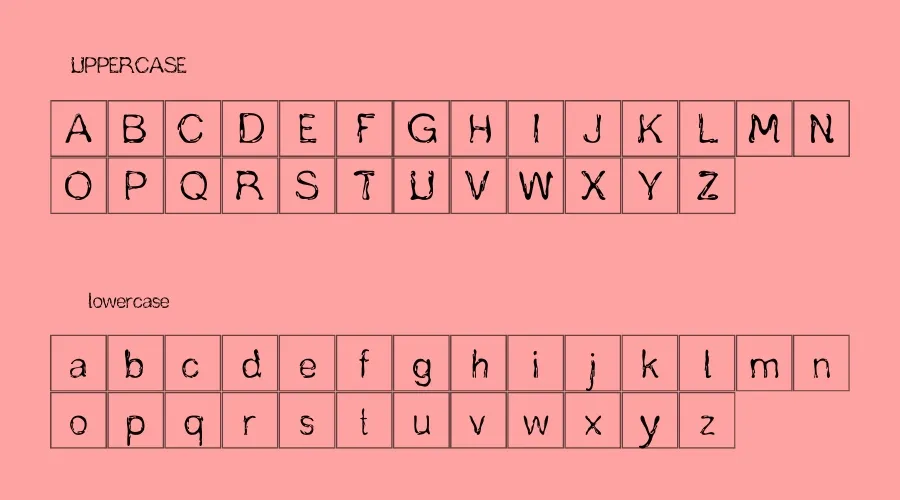
Marina Font
About Marina Font
In this post, we are offering a free font named Marina Font. This font was designed by a famous graphic designer known as the name of Rafa Goicoechea. He has also created various other popular fonts. This typeface has an elegant and modern look. It contains family package options that contain 2 styles.
The characters are created with precision and clear purpose, which is perfect for copy-and-paste functions. The subfamily of this typeface is regular and contains various types of styles and weights such as bold, italic, and Regular.